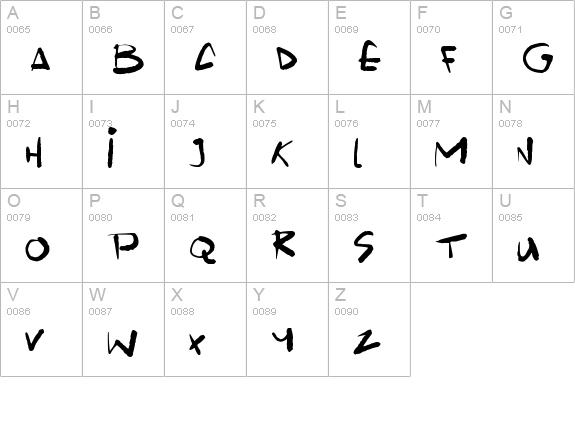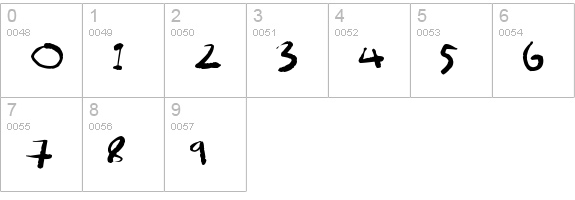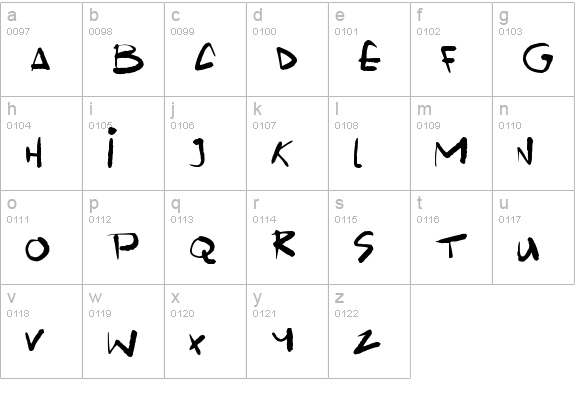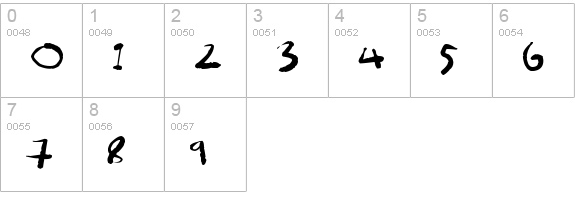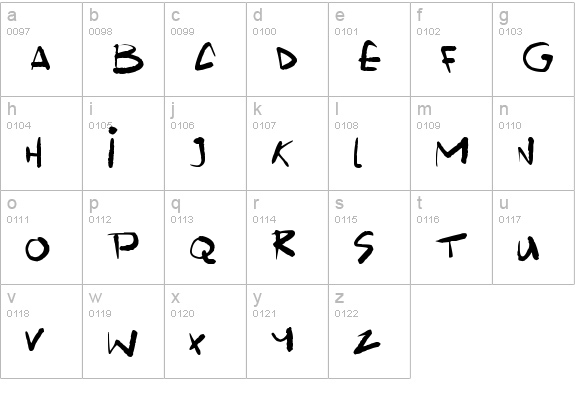
Scrawlamajig Font Details
Scrawlamajig is a free for personal use font in the Script > Brush category, designed by Darrell Flood. It has been downloaded 24 times and is available for Windows, Mac and Linux.
The Scrawlamajig font is a whimsical and playful typeface that exudes a sense of creativity and fun. With its quirky and hand-drawn style, this font is perfect for adding a unique touch to your designs. Whether you're working on a project that calls for a touch of whimsy or you simply want to stand out from the crowd, Scrawlamajig is sure to make a statement.